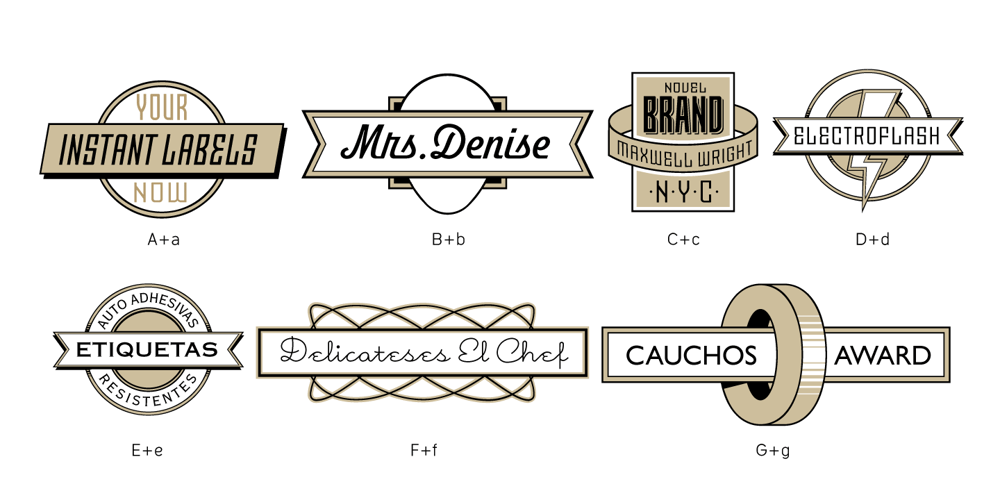
InkArt Labels Font Family was designed by John Moore and published by John Moore Type Foundry. InkArt Labels contains 1 styles and family package options. Inkart is a font dingbats, shapes for new labels or frames that the user can supplement according to the requirements and purposes. It consists of a set uppercase containing the forms, and a set is lower case which has areas of the same shapes to be colored by layers. Contains retro and modern styles.